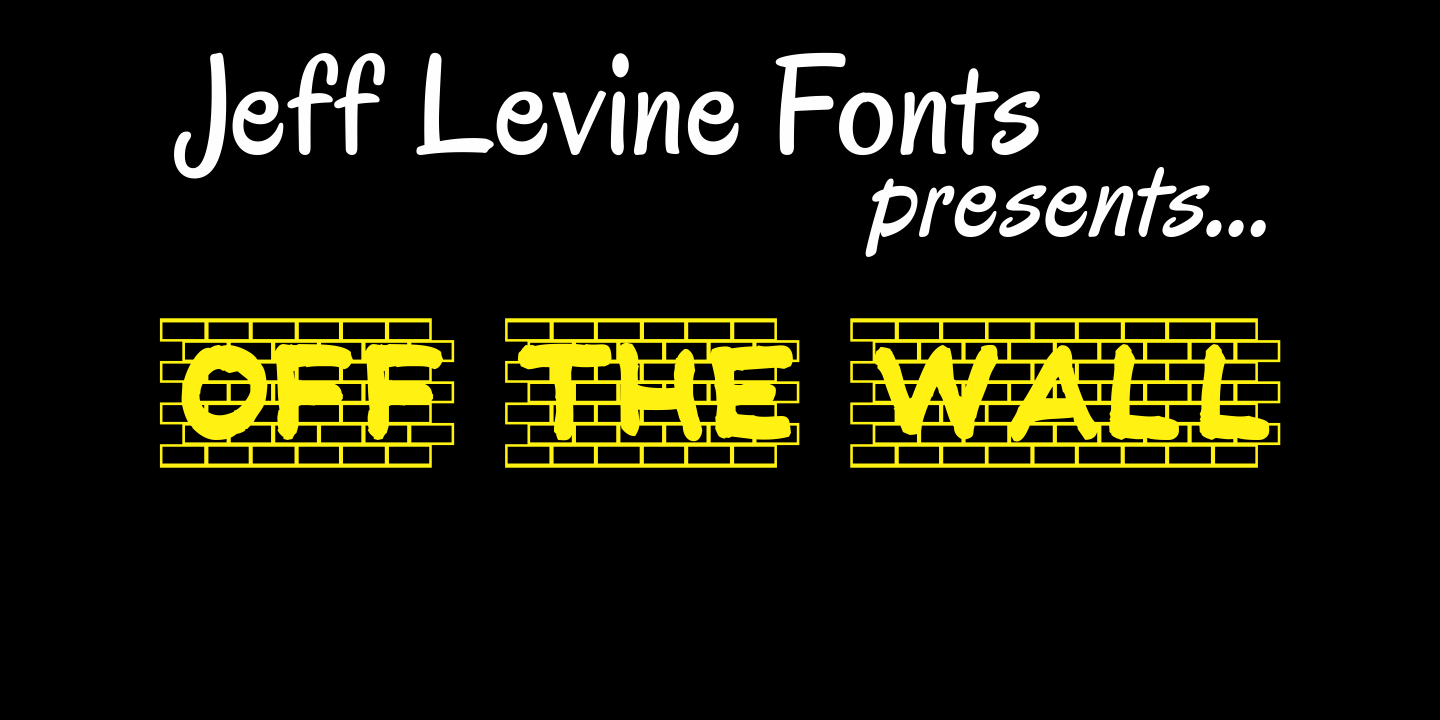
Off the Wall
Off the Wall JNL is a unique typeface that combines graffiti-style lettering with a brick wall background. special keystroke features give you a complete "wall of text":
{ (left bracket) places a smaller closed end cap on the left side of the text. } (right bracket) places a medium closed end cap on the right side of the text. [ (left brace) places a regular closed end cap on the left side of the text. ] (right brace places a regular closed end cap on the right side of the text. | (vertical bar key) adds a space between words. (backslash) adds a larger space between words.